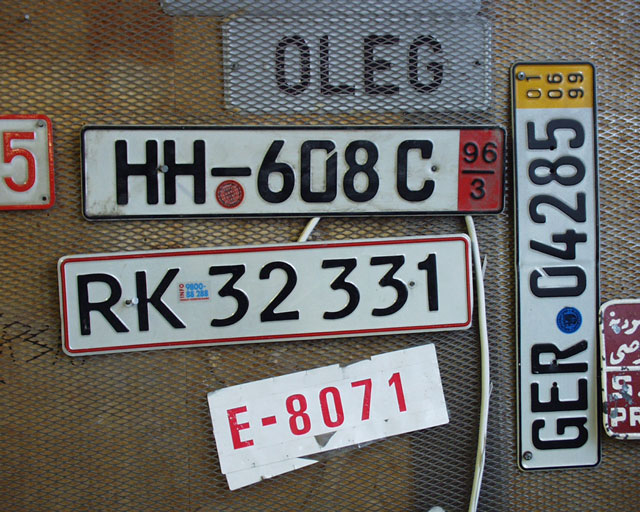
![]() ![]() ![]() carplate type basic info : thoughts and ideas : presentation half way : ![]() When starting out to develop a license plate typeface, we were given requirements along the lines of German plate rejuvenation with FE Engschrift (Linotype), in which the characters could not be modified to look otherwise. Another limitation was to create monospaced type, which creates problems as characters are either too far apart or their dimensions will not be consistent in relation to each other; this is a problem with finnish license plate type in letters such as C and E. We printed out several mock plates with monospaced Adobe fonts such as Orator, Letter Gothic and OCR. They were, however, unsuitable for use as available font weights were inadequate and the visual feel was very technical and cold. Our own sketches started out almost jugend in style and we wanted to have some stroke contrasts and more human feel to the characters. While seeking ideas to escape the technical feel, we were digging out samples of type used in plates all around the world. Finnish license plates seemed to us as very uptight and dull, although we couldn't topple them at visibility. OCR-B seemed to work slightly modified, but when put on the wall with the rest, it too disappeared into blur. The official plate type has been in use at least since 1927, with only slight modifications and, although ugly as goat, it still rocks. We saw that our letters were too light, too thin to survive these basic tests - it looked too narrow, even if it was the same width as official lettering. We are now heading on to fine-tuning the stroke contrasts smaller and making the letters thicker and wider in order to compensate the visual endgame. We also made a trip to prison, but I'll tell more about that later on... keep watching this space! ![]()